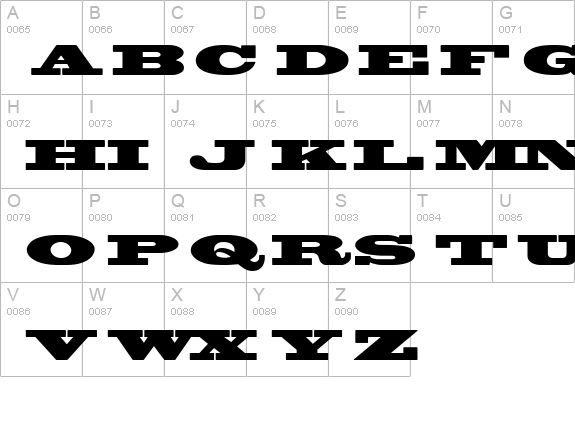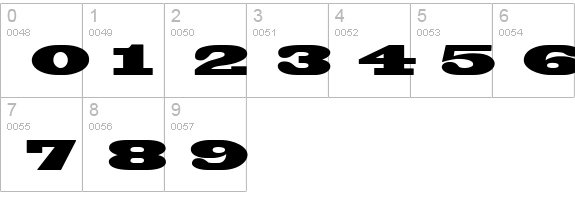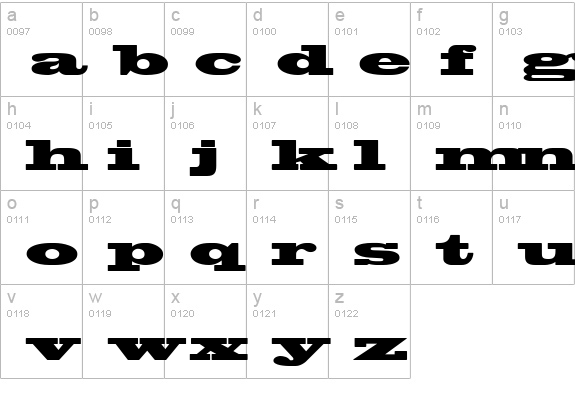
Wanted Poster SSi Black Font Details
Wanted Poster SSi Black is a maximum-weight, dramatic variant in the Wanted typeface family \xE2\x80\x94 well suited to maximum-impact headlines, posters, and packaging.
Introducing the mesmerizing Wanted Poster SSi Black font – a bold and captivating typeface that will make your designs stand out from the crowd. This font exudes an aura of mystery and intrigue, perfect for creating attention-grabbing headlines, posters, and advertisements that demand attention. With its thick and commanding letterforms, Wanted Poster SSi Black font evokes a sense of authority and power. Its strong, block-like structure creates a visual impact that captures the essence of a classic wanted poster, adding a touch of vintage flair to your projects. Whether you're designing for a Wild West-themed event or seeking to add a touch of nostalgia to your design, this font is the perfect choice. What sets Wanted Poster SSi Black font apart is not only its striking appearance but also its versatility. It is suitable for a wide range of design purposes, from branding and packaging to book covers and movie titles. Its clean lines and distinct character shapes make it easily legible even at small sizes, ensuring that your message is conveyed effectively. One of the best features of Wanted Poster SSi Black font is that it is freely available to download at FontsMarket.com. Yes, you read that right – this exceptional font can be yours without any cost. FontsMarket.com offers a vast collection of high-quality fonts, and Wanted Poster SSi Black font is one of the jewels in their treasure trove. By downloading this font, you not only gain access to a unique and eye-catching typeface but also save money, allowing you to allocate your resources to other aspects of your design project. So, why wait? Don't miss out on the opportunity to enhance your designs with the captivating appeal of Wanted Poster SSi Black font. Visit FontsMarket.com today and unleash your creativity with this exceptional typeface.